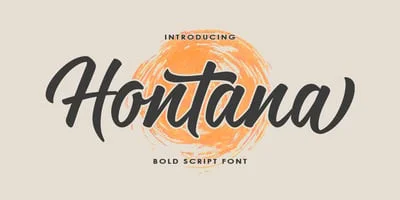
Hontana Font
Hontana Font is ideal for mountain resort branding, outdoor adventure marketing, alpine lodge signage, wilderness tourism promotions, hiking gear packaging, nature photography portfolios, and majestic landscape projects.
What makes Hontana Font exciting is its mountainous majesty and alpine strength, featuring rugged letterforms that capture the essence of mountain peaks while delivering powerful visual impact and wilderness authenticity.
The Hontana Font family includes Light, Regular, Medium, Bold, and Heavy weights, plus rugged variants and mountain-inspired alternates that enhance the font's majestic character and alpine possibilities.
Hontana Font embodies the awe-inspiring grandeur of mountain landscapes and the adventurous spirit of alpine exploration through powerful typography design. This majestic typeface captures the raw beauty of towering peaks and the untamed wilderness of mountain ranges, creating a commanding visual language that speaks to adventurers and nature enthusiasts who value outdoor exploration, mountain climbing, and the breathtaking magnificence of alpine environments. The font's mountainous character and alpine appearance make it perfect for outdoor gear companies, mountain resorts, and adventure tourism brands that want to communicate strength, adventure, and the inspiring appeal of mountain wilderness.
Mountain resorts and outdoor adventure companies consistently choose Hontana Font for projects that require authentic alpine credibility and majestic visual appeal. The typeface's rugged construction and mountainous personality make it exceptionally effective for ski lodges, hiking equipment manufacturers, and wilderness tour operators where mountain adventure and alpine authenticity are paramount. Each character has been crafted with mountainous precision to ensure maximum impact across all alpine applications and wilderness environments.
The adventure advantages of Hontana Font extend beyond its mountain appeal to include practical functionality for diverse outdoor applications. The font maintains excellent readability in wilderness conditions while delivering the distinctive character that creates memorable mountain experiences and connects with audiences seeking authentic alpine adventure. Its comprehensive character set includes outdoor symbols and mountain elements that make it particularly suitable for wilderness documentation and alpine communication.
Ski resorts, hiking gear companies, and mountain tourism organizations frequently incorporate Hontana Font into their brand identity systems because of its ability to instantly convey alpine authenticity and mountain sophistication. The typeface's majestic aesthetic helps establish credibility in competitive outdoor markets while appealing to adventurers who value mountain experiences, wilderness exploration, and the inspiring journeys that come from authentic alpine adventure and mountainous discovery.